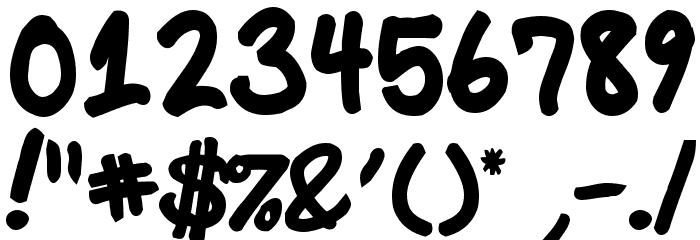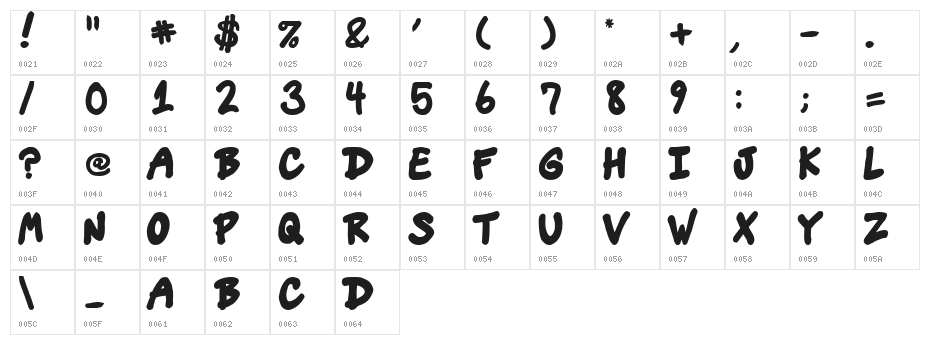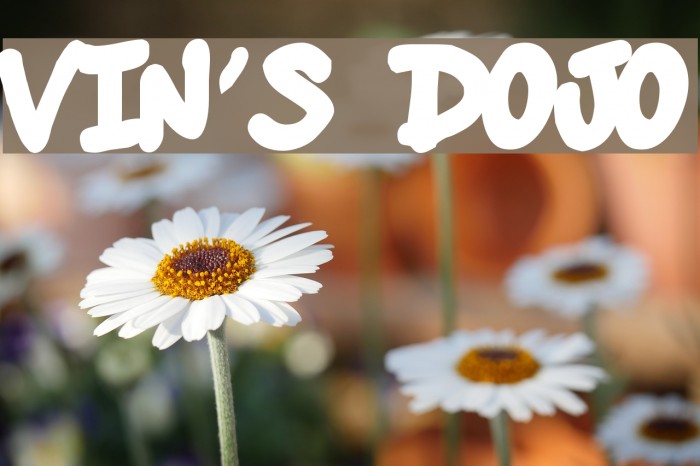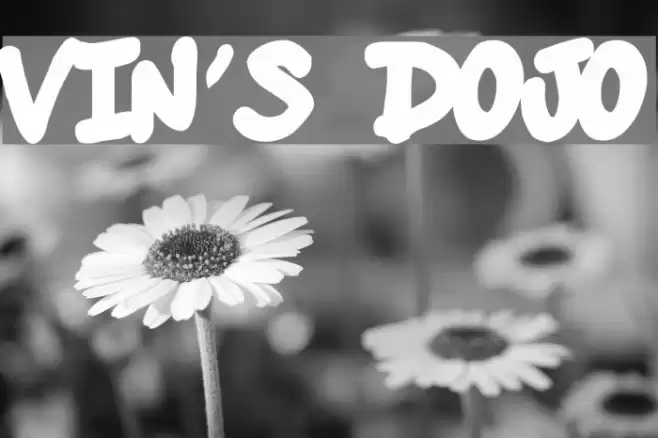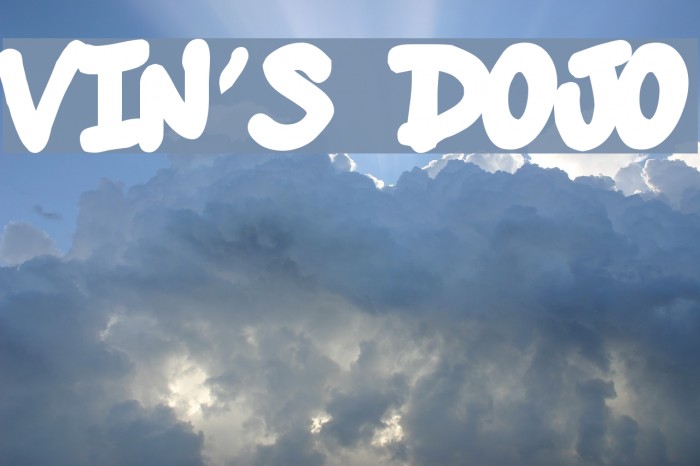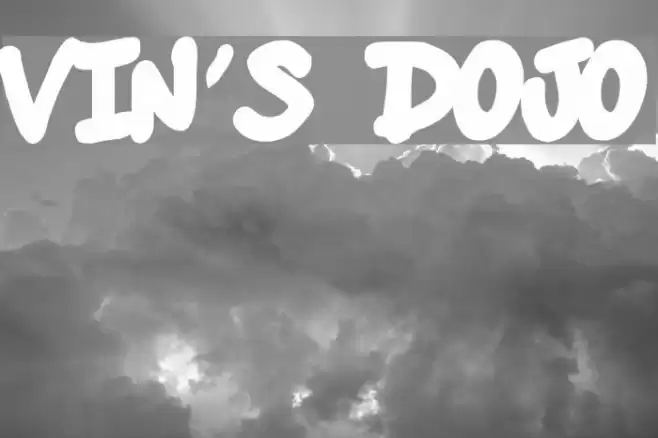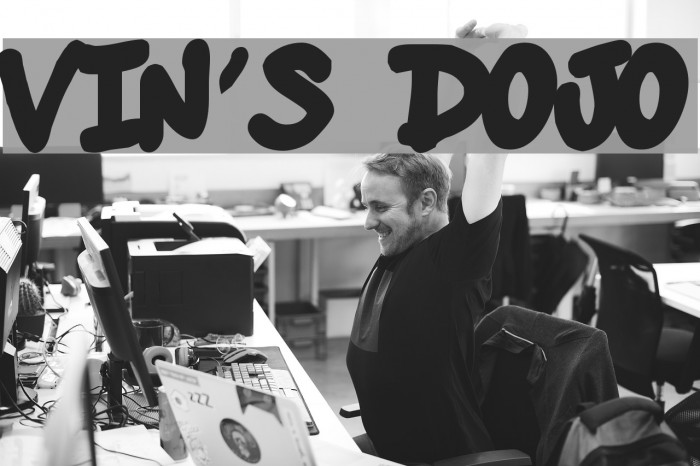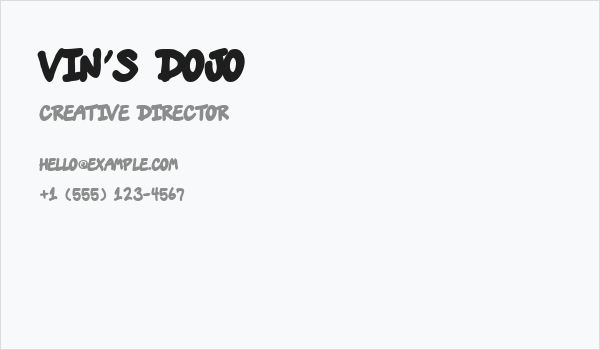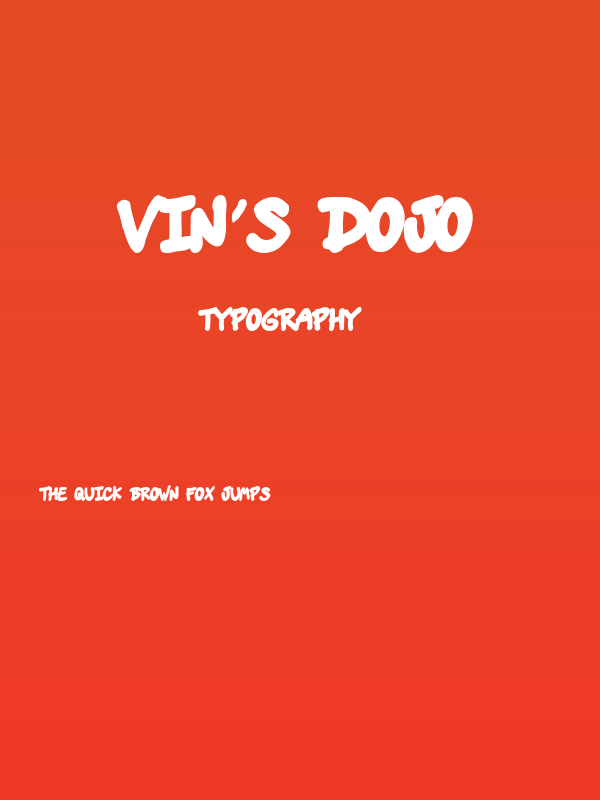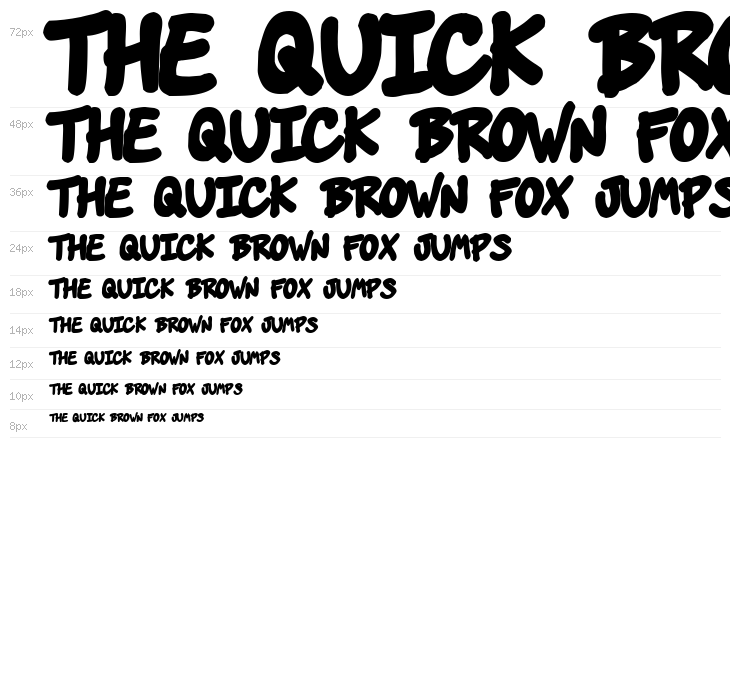
vin's dojo Font
vin's dojo Description
This font features a bold and energetic style with thick, rounded strokes that convey a sense of playfulness and dynamism. The characters are slightly slanted, giving them a casual, handwritten feel. The uppercase and lowercase letters maintain a consistent weight, ensuring readability while adding a touch of personality. The numbers and special characters follow the same design principles, making them cohesive with the alphabet. The overall appearance is lively and suitable for projects that require a fun and informal touch.
| Proposed Projects | Ideal for children's books, playful branding, posters, and social media graphics. |